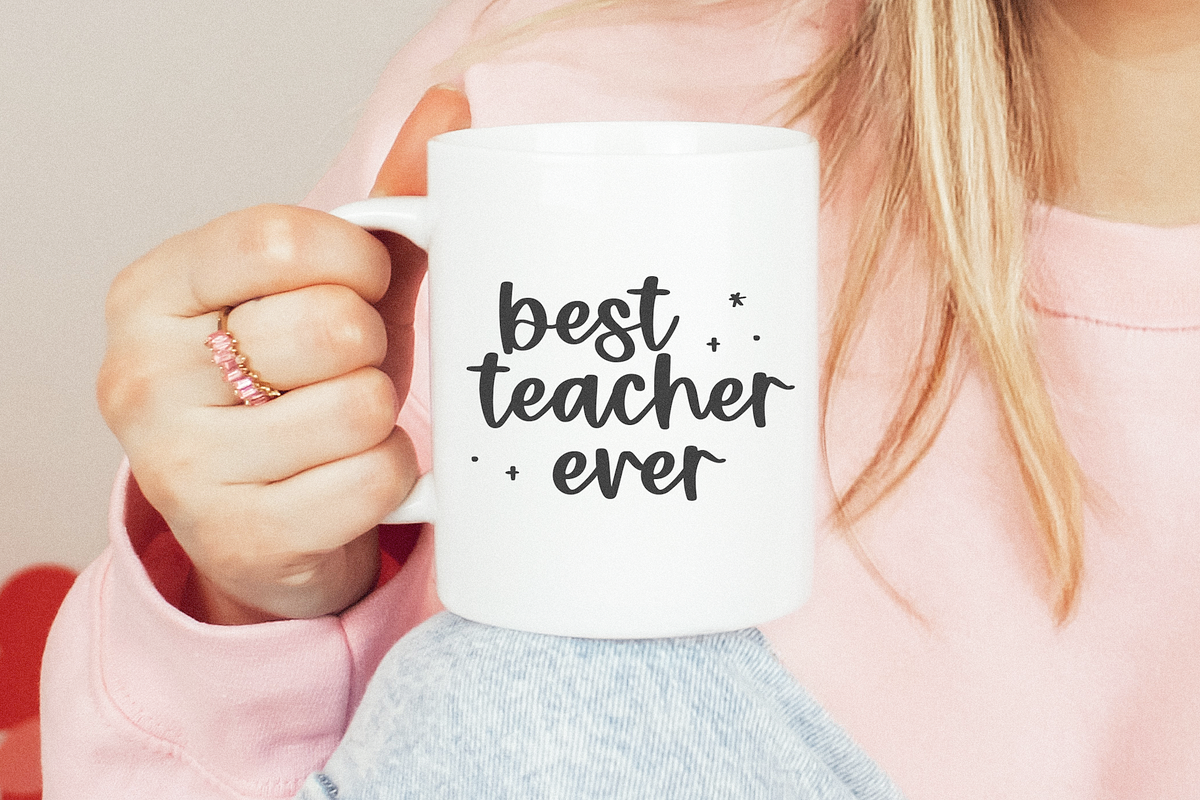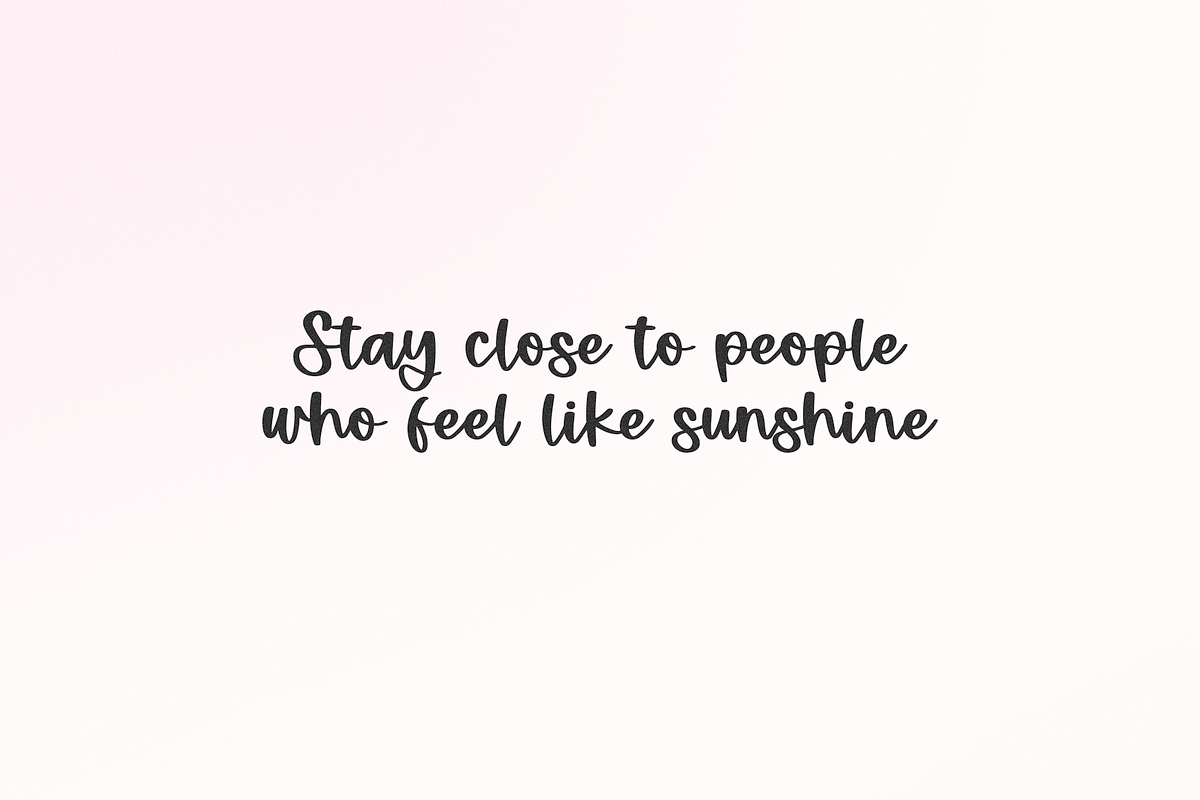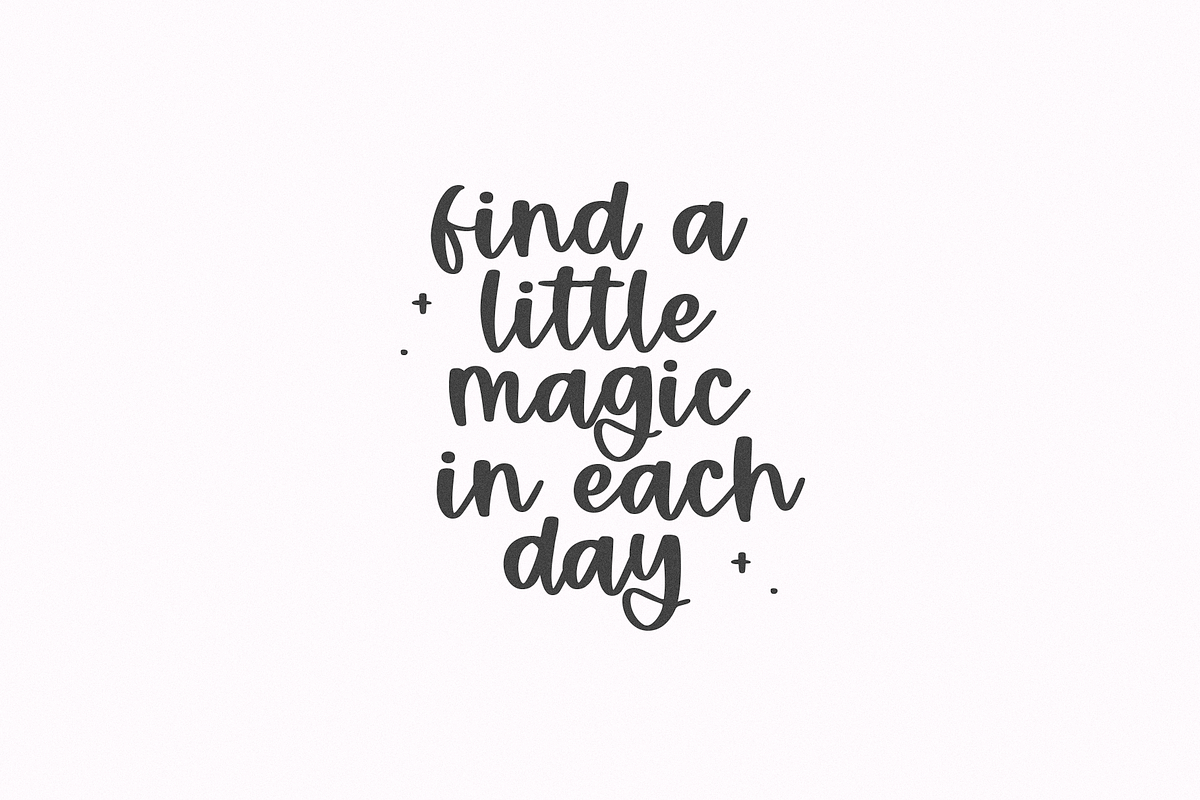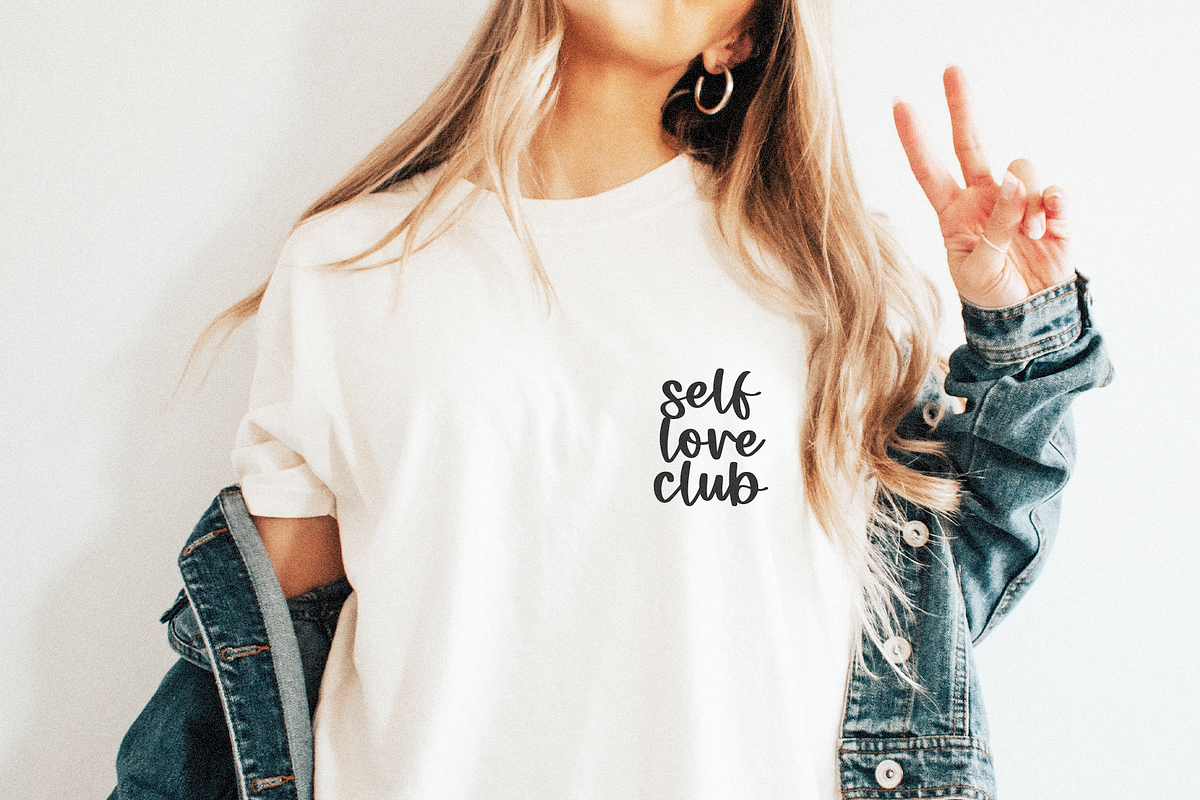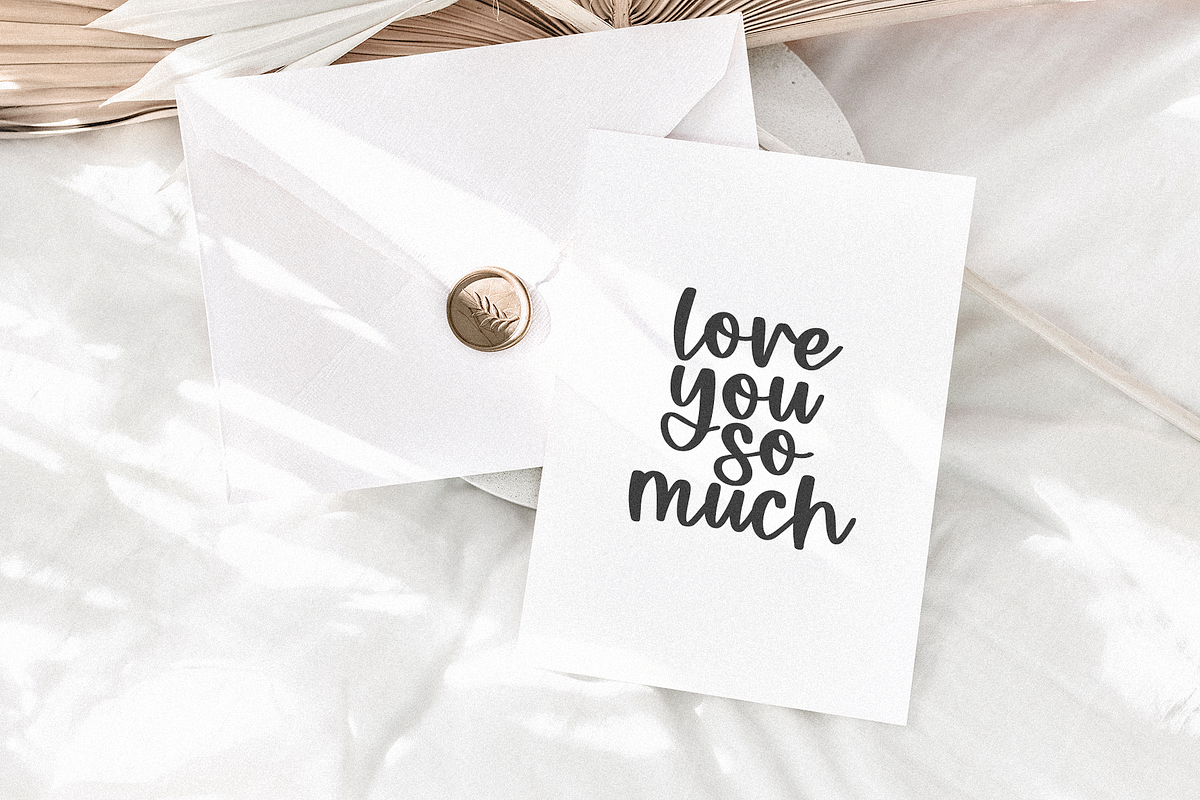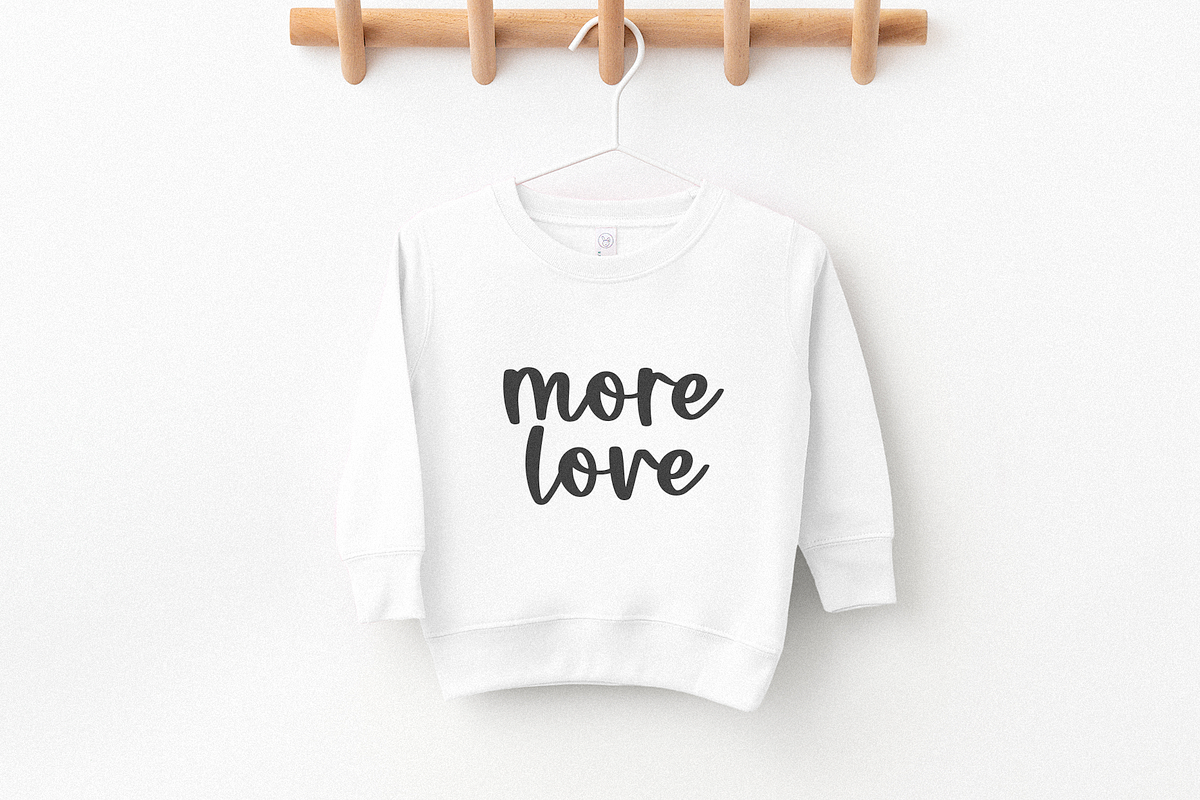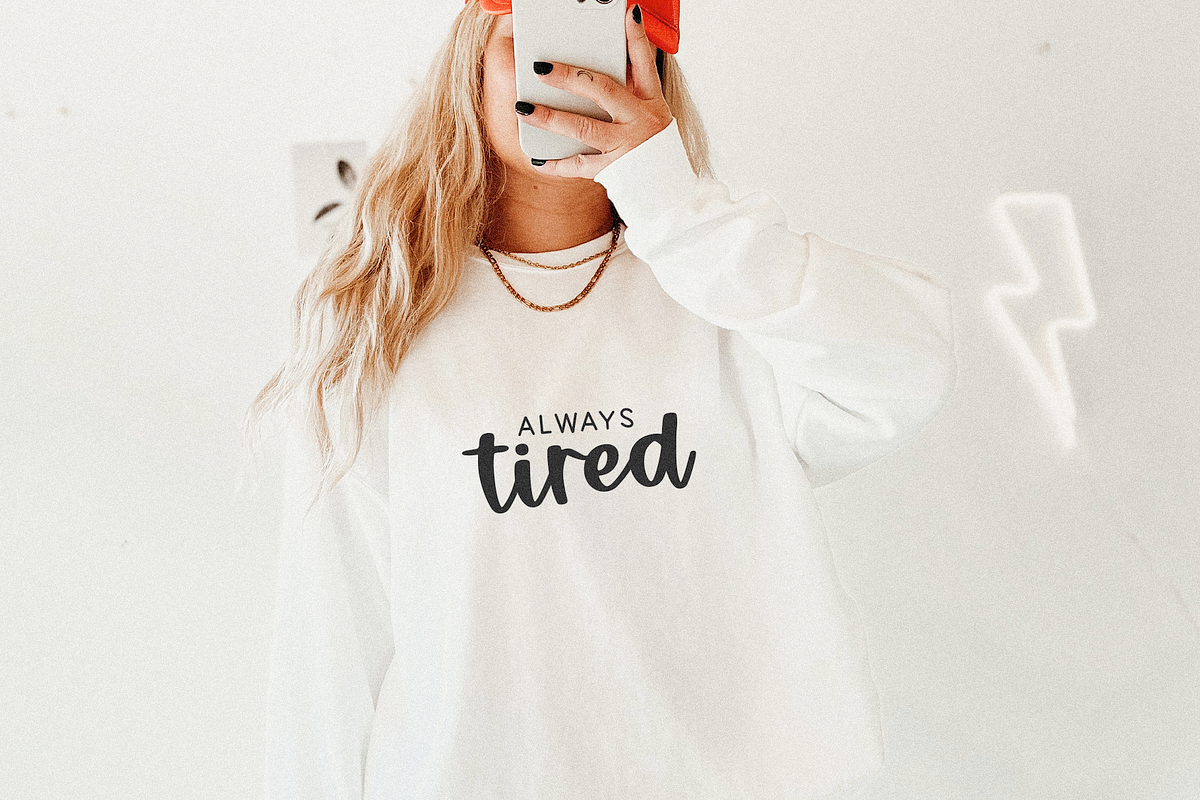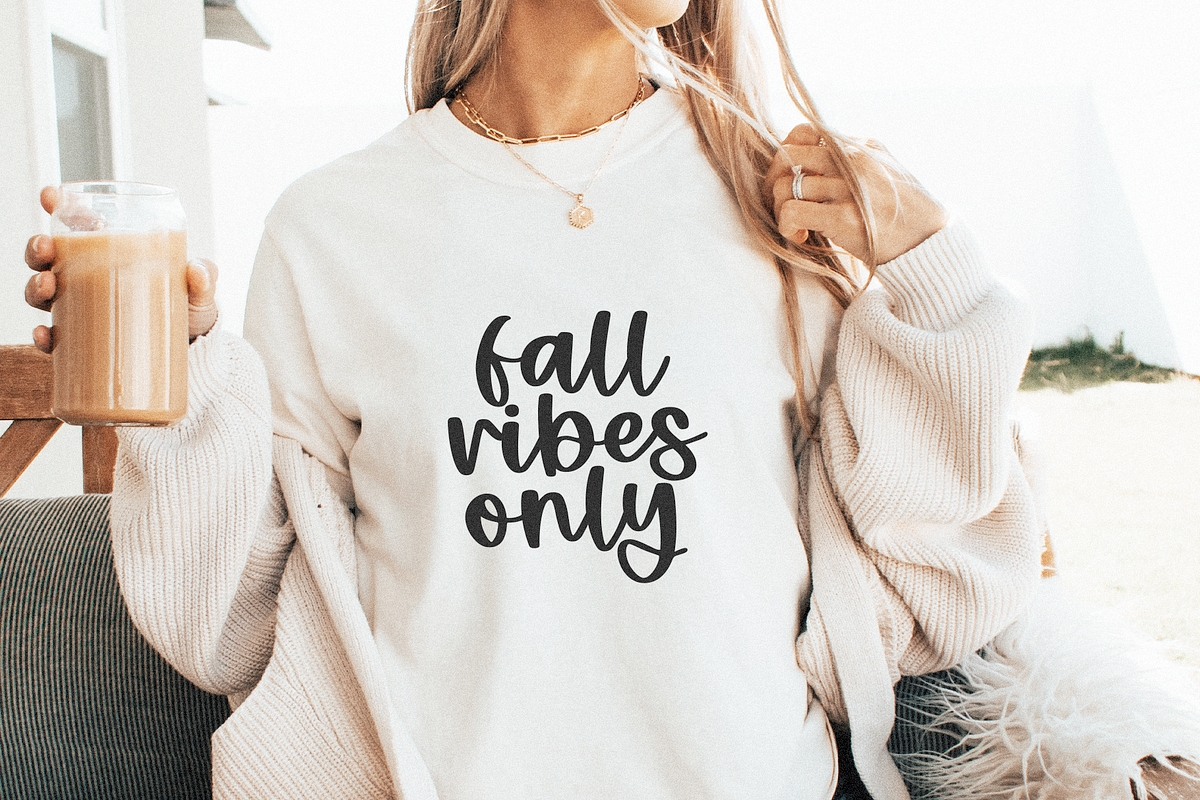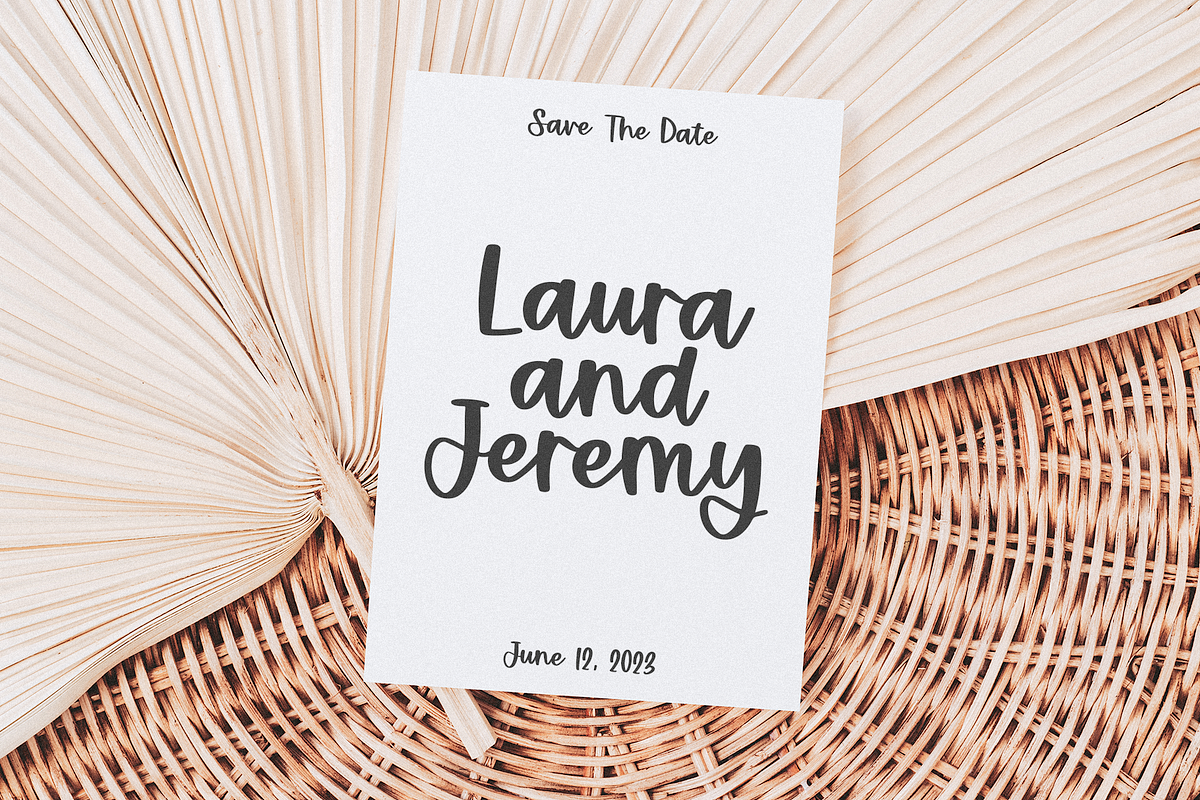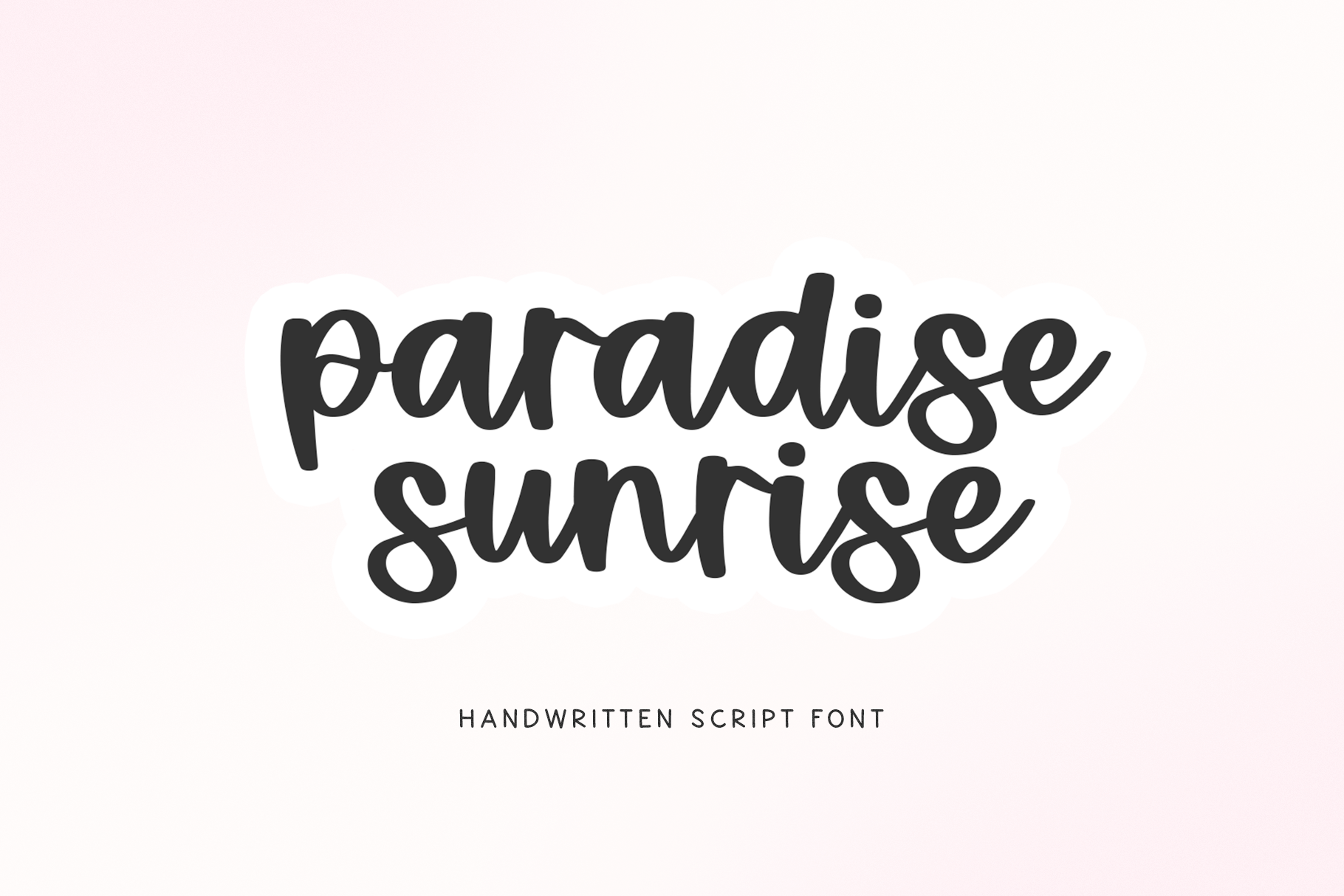
Paradise Sunrise | Cute Script Font
Paradise Sunrise is a cute handwritten script font
This font is perfect for crafts, svg files, stickers, name tags, cricut projects, shirts, doormats, teachers, logos and more!